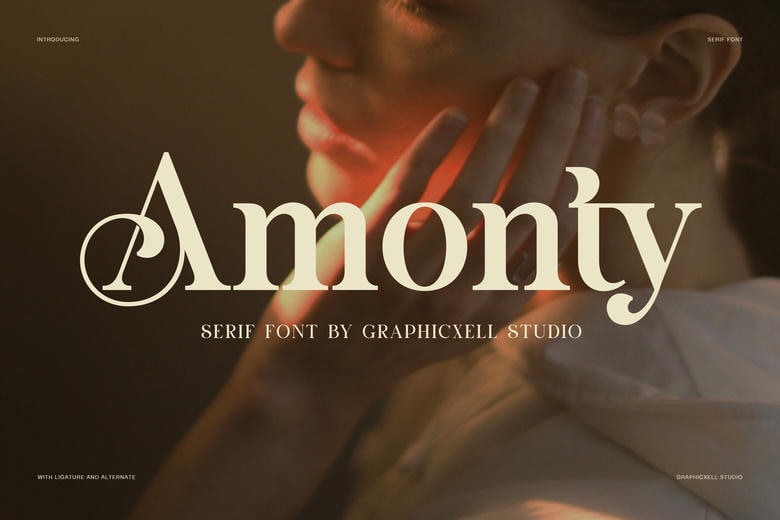
Amonty Font
Amonty is a high-contrast serif font made for modern branding, beauty, fashion, and editorial projects. Its bold shapes stand out, while the soft curves and rounded details bring a sense of warmth and elegance.
Amonty Contrast Serif Font